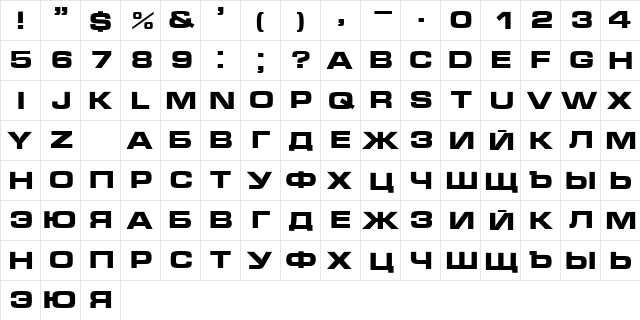
MICRA BoldA
Design Context for MICRA Typeface
MICRA is a composed and adaptable typeface that performs quietly and consistently across a wide range of design contexts. Its bold stroke weight gives it real presence on the page.